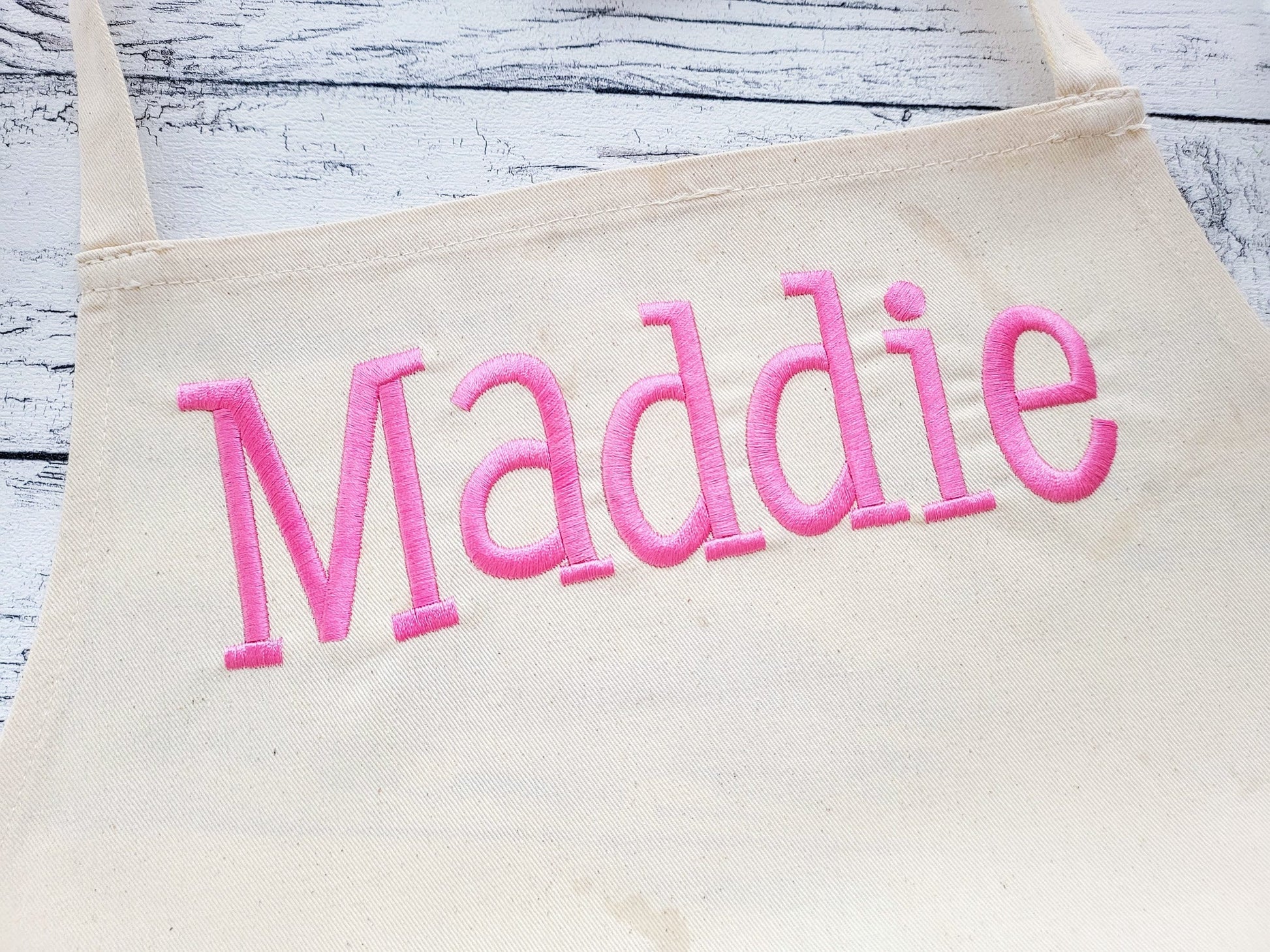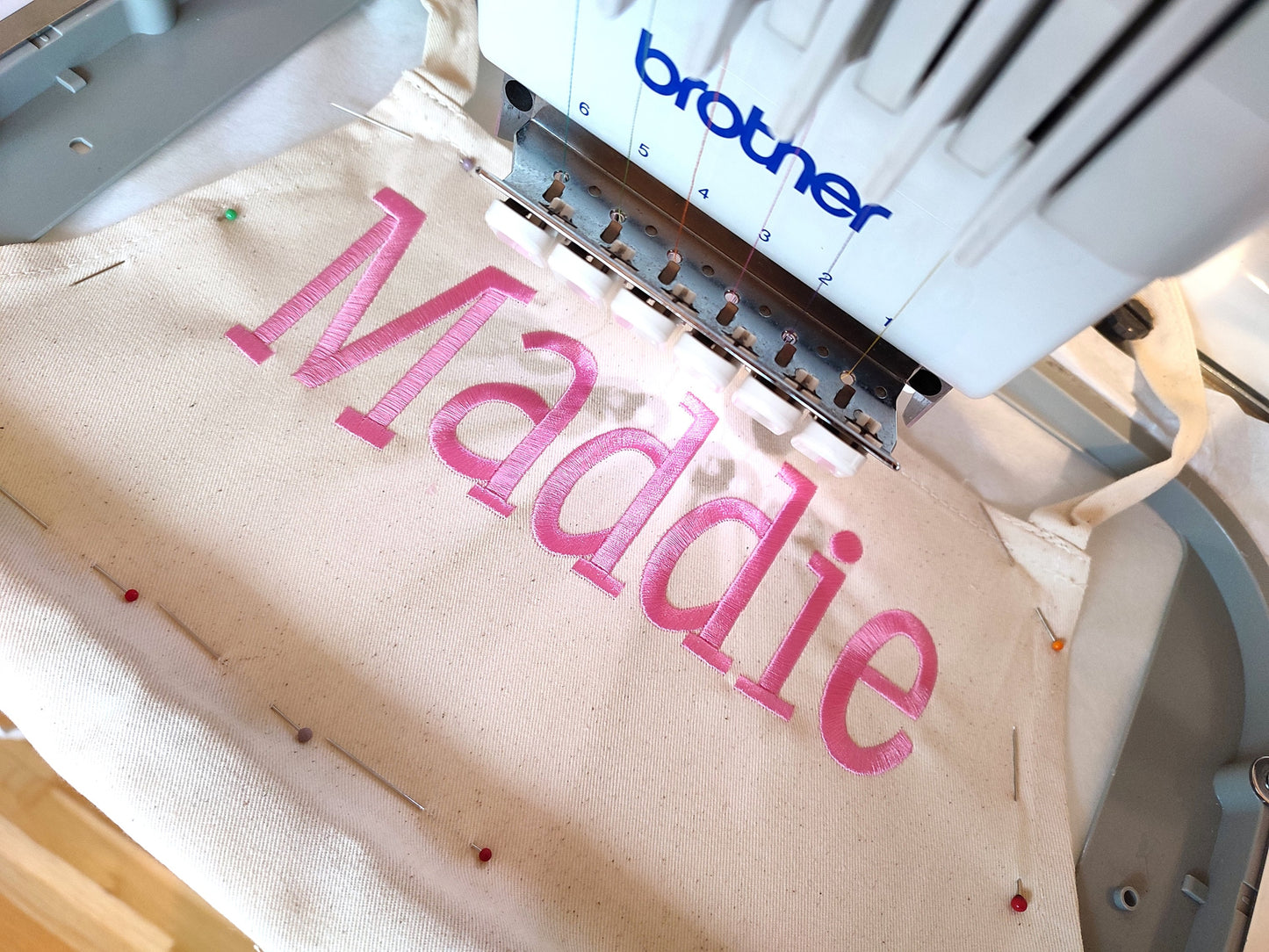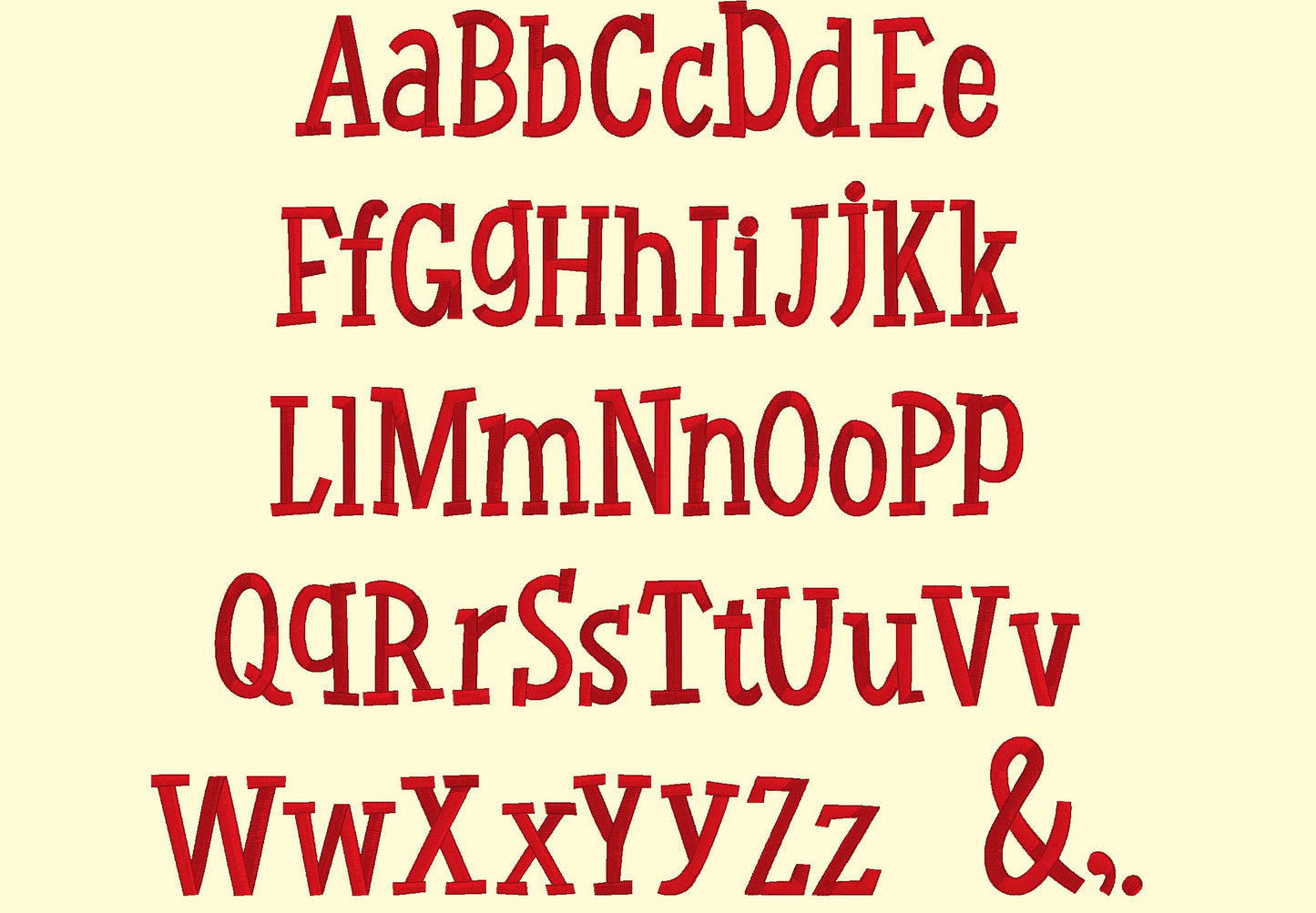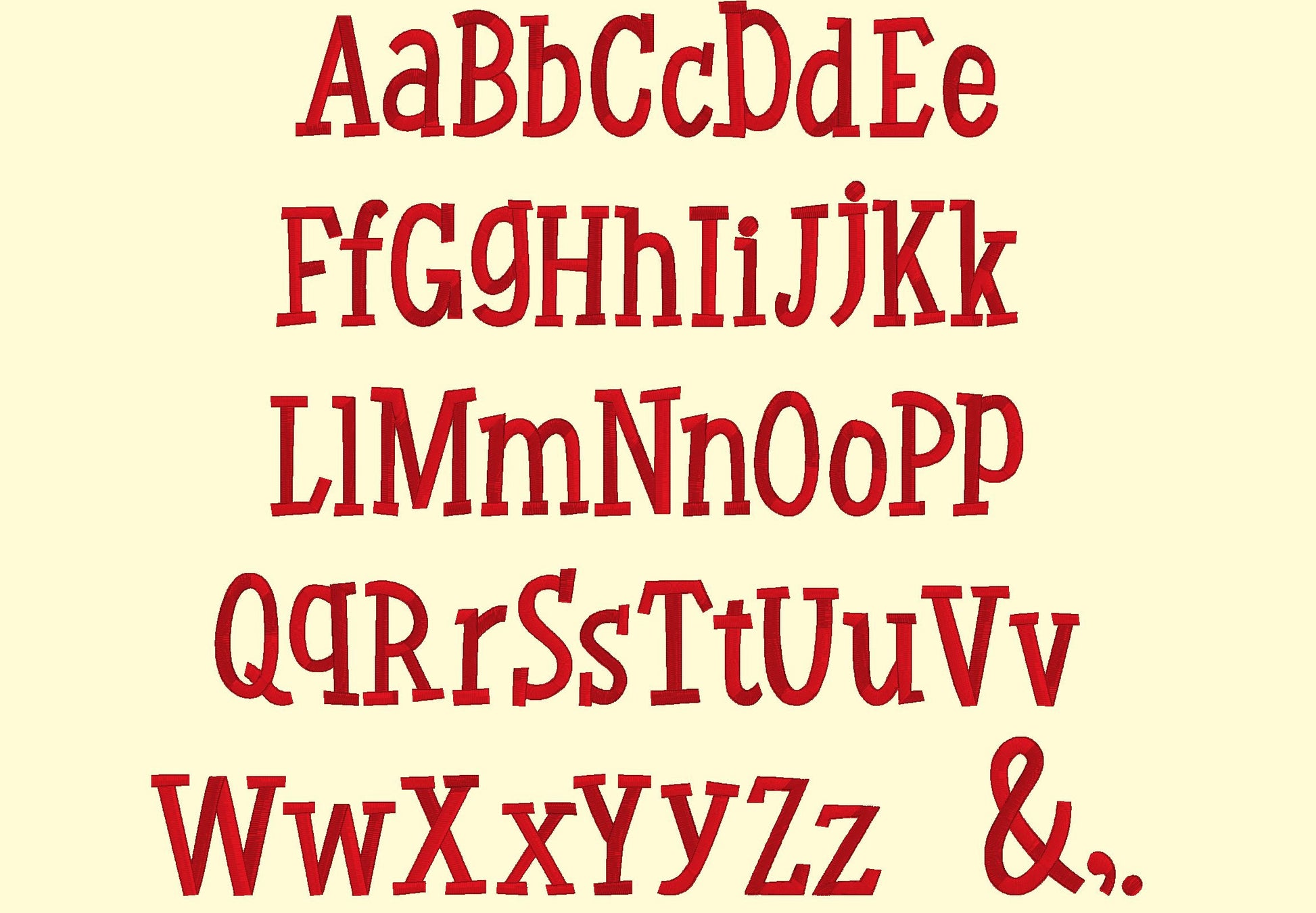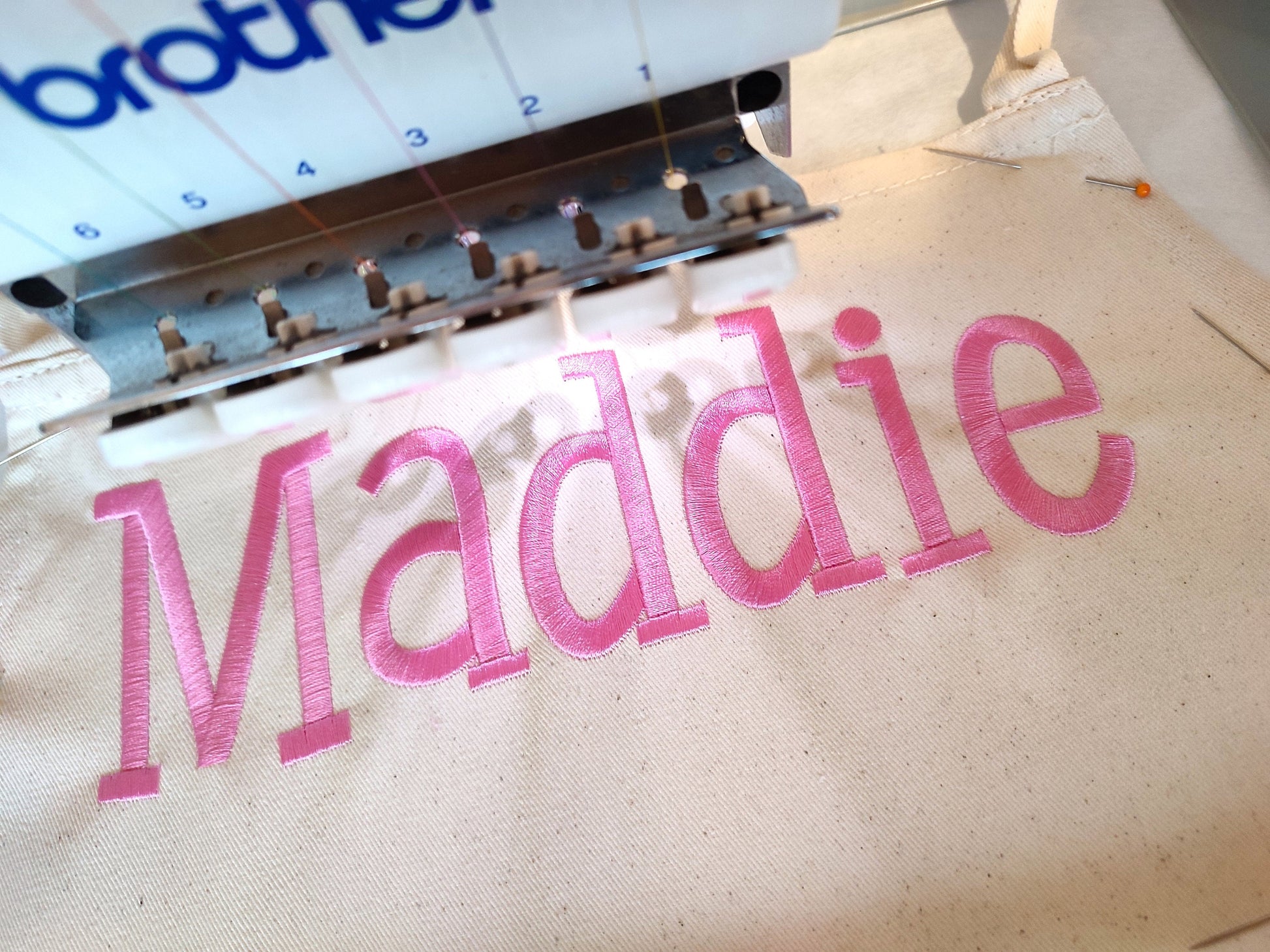
Or click to open the linkA cute, playful satin stitch font for kids' names and monograms on shirts, towels, bags and blankets.
Uppercase and lowercase letters, plus an ampersand, comma and period. The letters come in five sizes: 1.4, 1.6, 2, 2.8 and 3.5 inches. Smooth, shiny satin stitching.